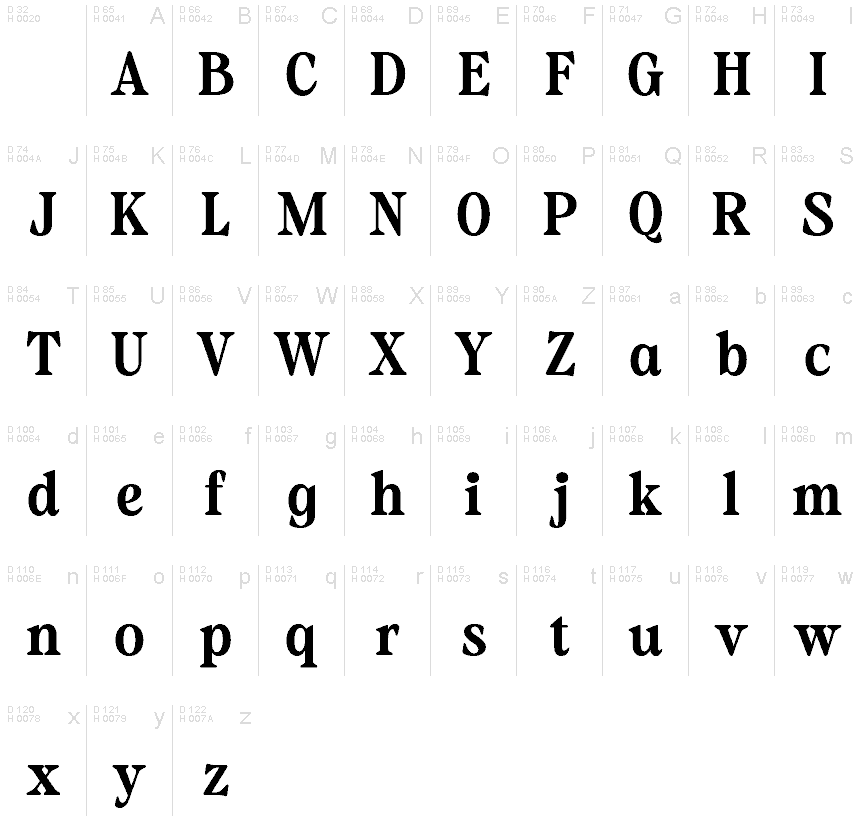
CS Monalisa Regular Demo
CS Monalisa font by Craft Supply Co. is a classic serif that captivates with its elegant and formal appearance. This traditional style effortlessly combines sophistication with readability, ideal for projects that require a timeless touch.